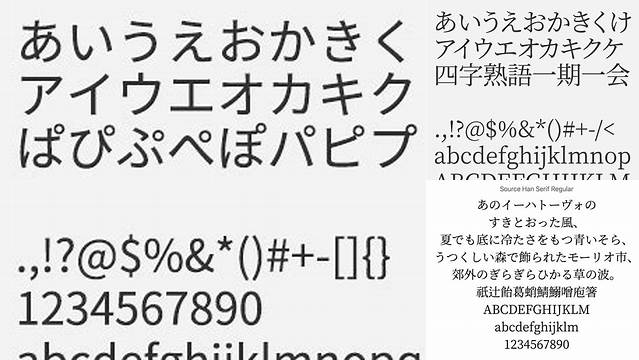
Japanese Font: Free Source Han Sans Download
Free Download of Source Han Sans Japanese Font: Your Ultimate Guide
Hey guys, are you looking to spice up your designs with some cool Japanese fonts? Well, you're in luck! Source Han Sans Japanese font is a fantastic choice, and guess what? You can download it for free! This comprehensive guide will walk you through everything you need to know about this amazing font, including how to grab it, why it's awesome, and how to use it like a pro. Let's dive in!
What is Source Han Sans Japanese Font?
First things first, what exactly is Source Han Sans Japanese font? In simple terms, it's a beautiful and versatile typeface designed to work seamlessly with Japanese characters. It's part of the larger Source Han Sans family, which includes fonts for several East Asian languages, including Chinese and Korean. The Japanese version is specifically crafted to match the nuances and aesthetics of Japanese writing, making your text look authentic and professional. What sets this font apart is its ability to handle both the complex kanji characters and the simpler hiragana and katakana scripts with grace and style. Plus, it's designed to look great on various platforms and devices, so whether you're working on a website, a mobile app, or a print project, Source Han Sans has got you covered. The font's design is clean, modern, and highly readable, making it a great choice for a wide range of projects, from branding and advertising to editorial design and user interfaces. It's designed to be legible even at small sizes, which is essential for digital displays. Also, it's highly scalable, meaning it retains its quality whether you use it for a headline or body text. This means you won't have to worry about pixelation or blurriness, no matter the size of your text. Ultimately, Source Han Sans Japanese font is more than just a typeface; it's a design tool that can help you communicate your message effectively and attractively, making your content accessible to a wider audience.
Why Should You Choose Source Han Sans Japanese Font?
Okay, so why should you pick Source Han Sans Japanese font over the myriad of other options out there? Let me tell you why! First off, its legibility is top-notch. This font is designed to be easy on the eyes, whether you're reading a headline or a long paragraph. This is super important, especially for digital content where users are often skimming. Its clean design ensures that the focus remains on the message, not the font itself. The font also supports a wide range of Japanese characters. It includes kanji, hiragana, and katakana, making it perfect for any project that requires full Japanese language support. You won't have to worry about missing characters or weird substitutions, because Source Han Sans covers all the bases. This comprehensive character support is critical for accuracy and professionalism in your designs. Another huge plus is its versatility. This font works great in various contexts, from websites and apps to print materials and presentations. This flexibility saves you the headache of finding different fonts for different uses. You can rely on Source Han Sans across all your projects. Its availability under the SIL Open Font License is another massive advantage. This license means it’s free for both personal and commercial use. This is a game-changer for freelancers, small businesses, and anyone looking to create Japanese content without breaking the bank. Plus, with free and open-source fonts, there's no need to worry about licensing fees or restrictions. This allows for greater creative freedom and flexibility. Lastly, Source Han Sans is constantly updated. The creators regularly release updates to improve the font, add new characters, and ensure it's compatible with the latest technologies. This commitment to improvement means you can always count on having a reliable and up-to-date font. When you pick Source Han Sans, you're not just choosing a font; you're choosing a complete package of readability, flexibility, and affordability, designed to meet your project's specific needs.